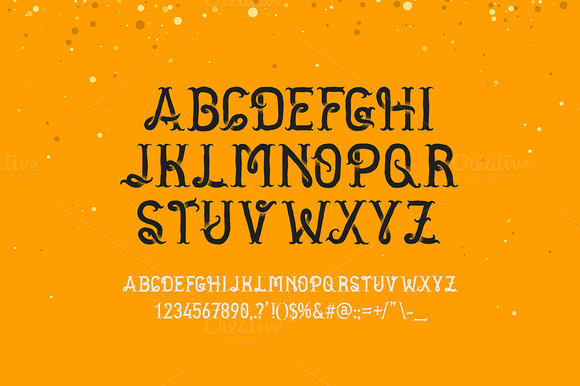
Golden Dust Typeface
Hello! Introducing a “Golden dust” font. Fully handcrafted with vintage points effect. Hundreds of dots brings a lot of fun 🙂 I hope you’ll enjoy it!